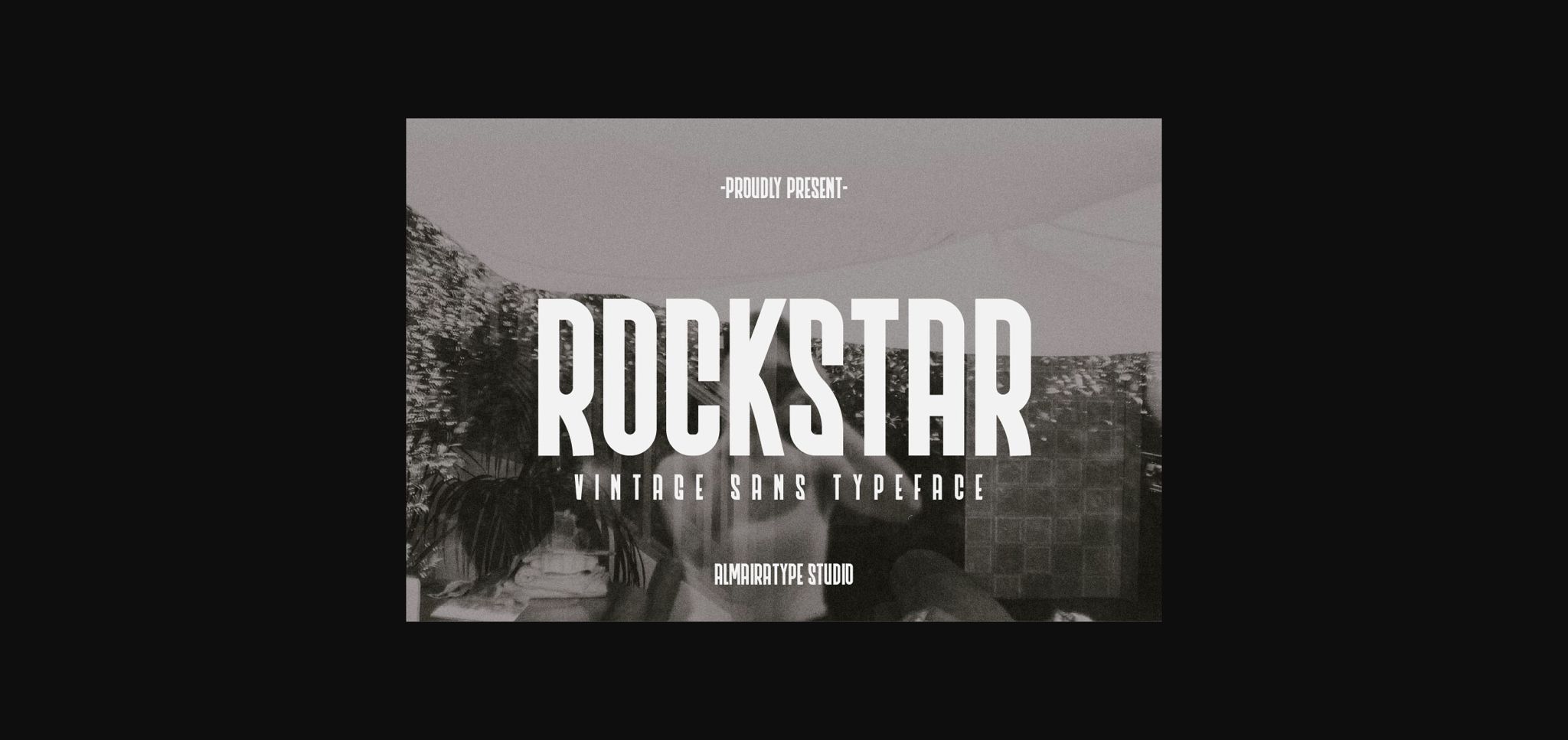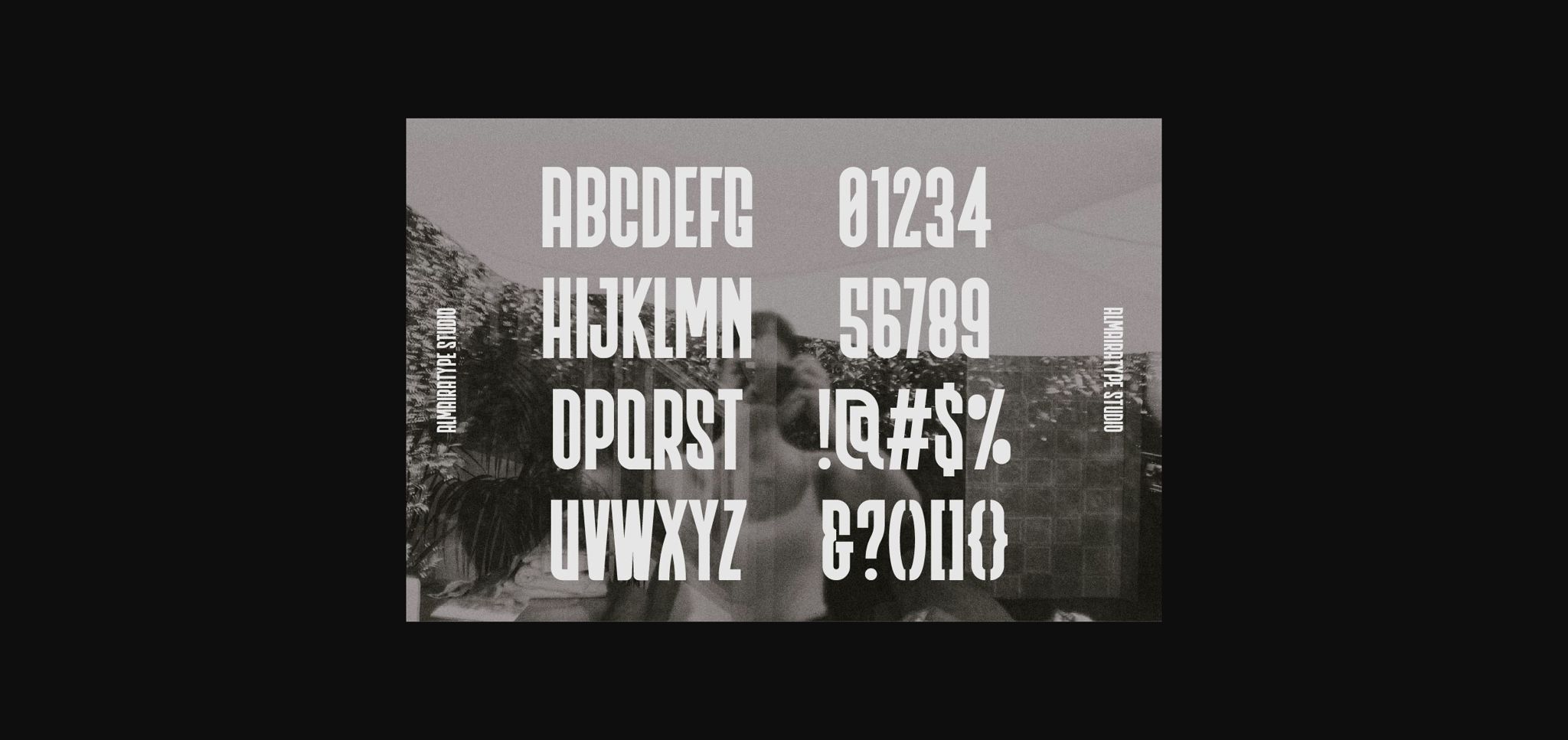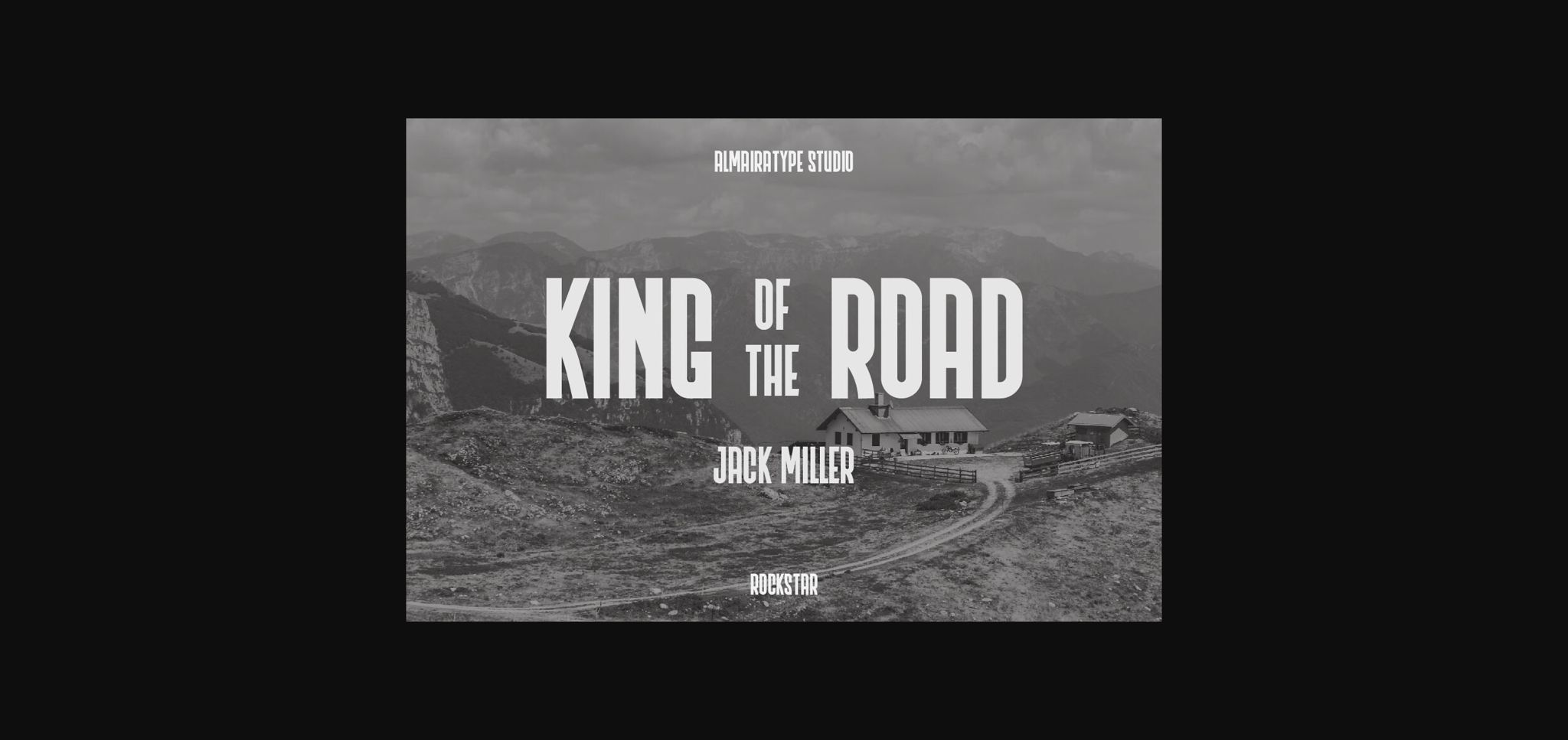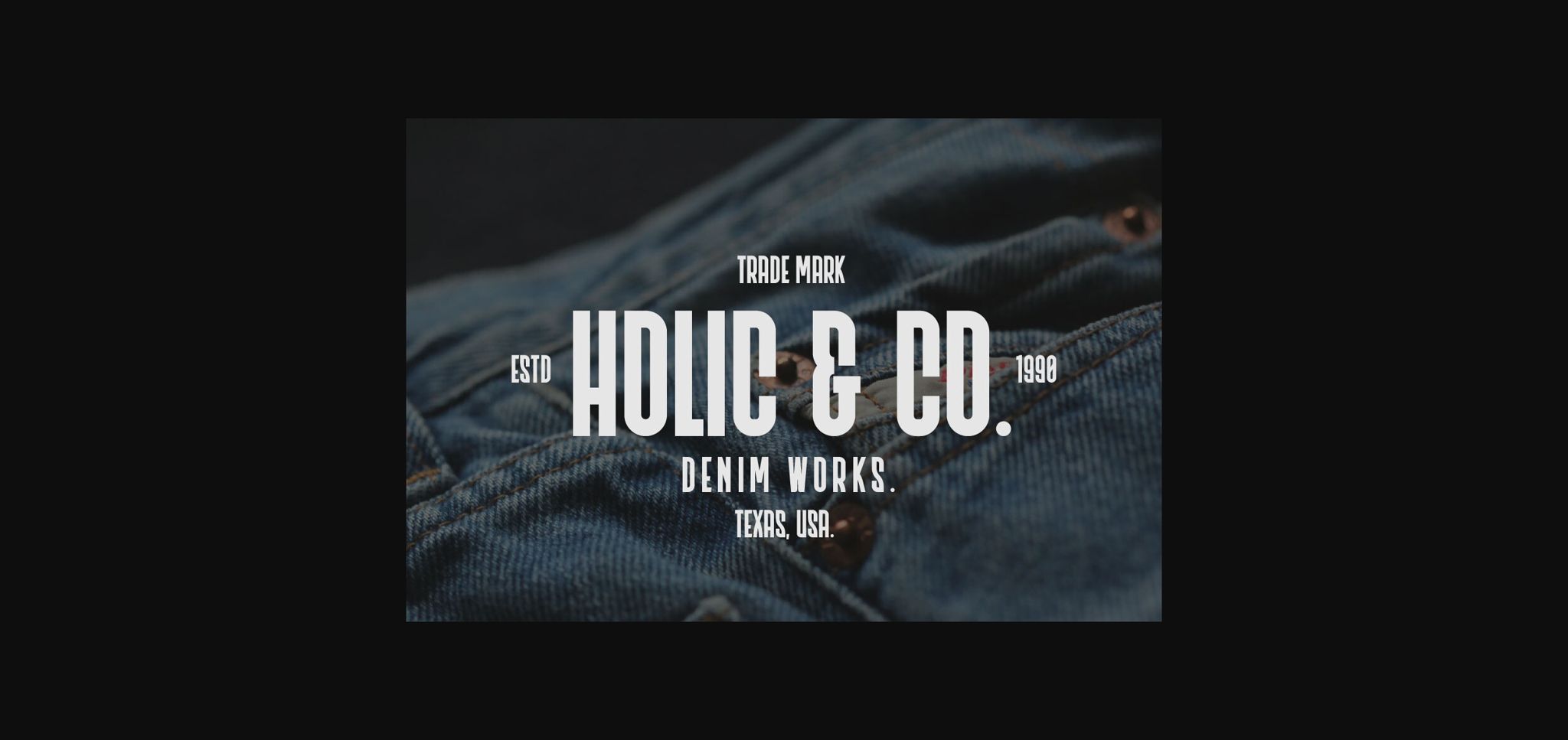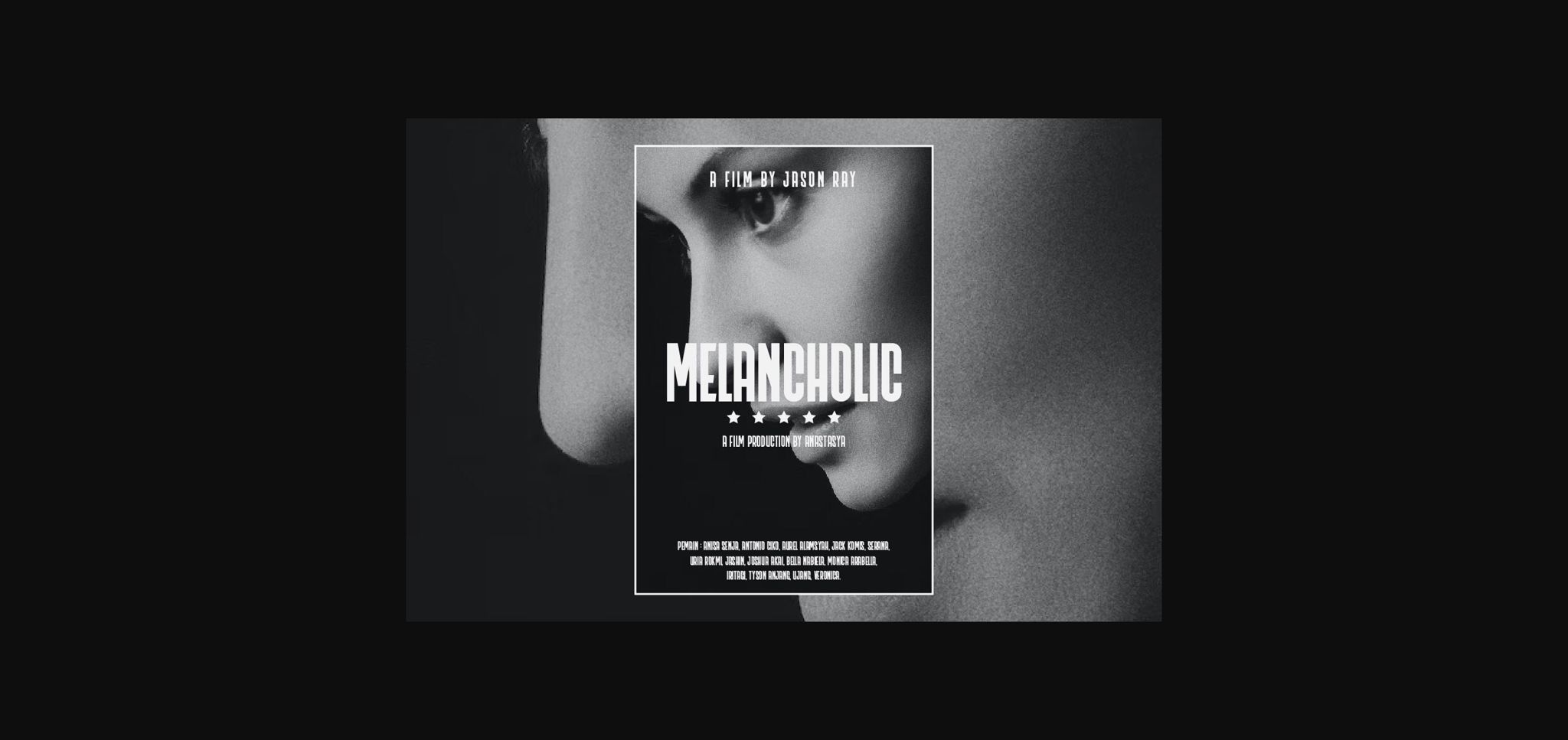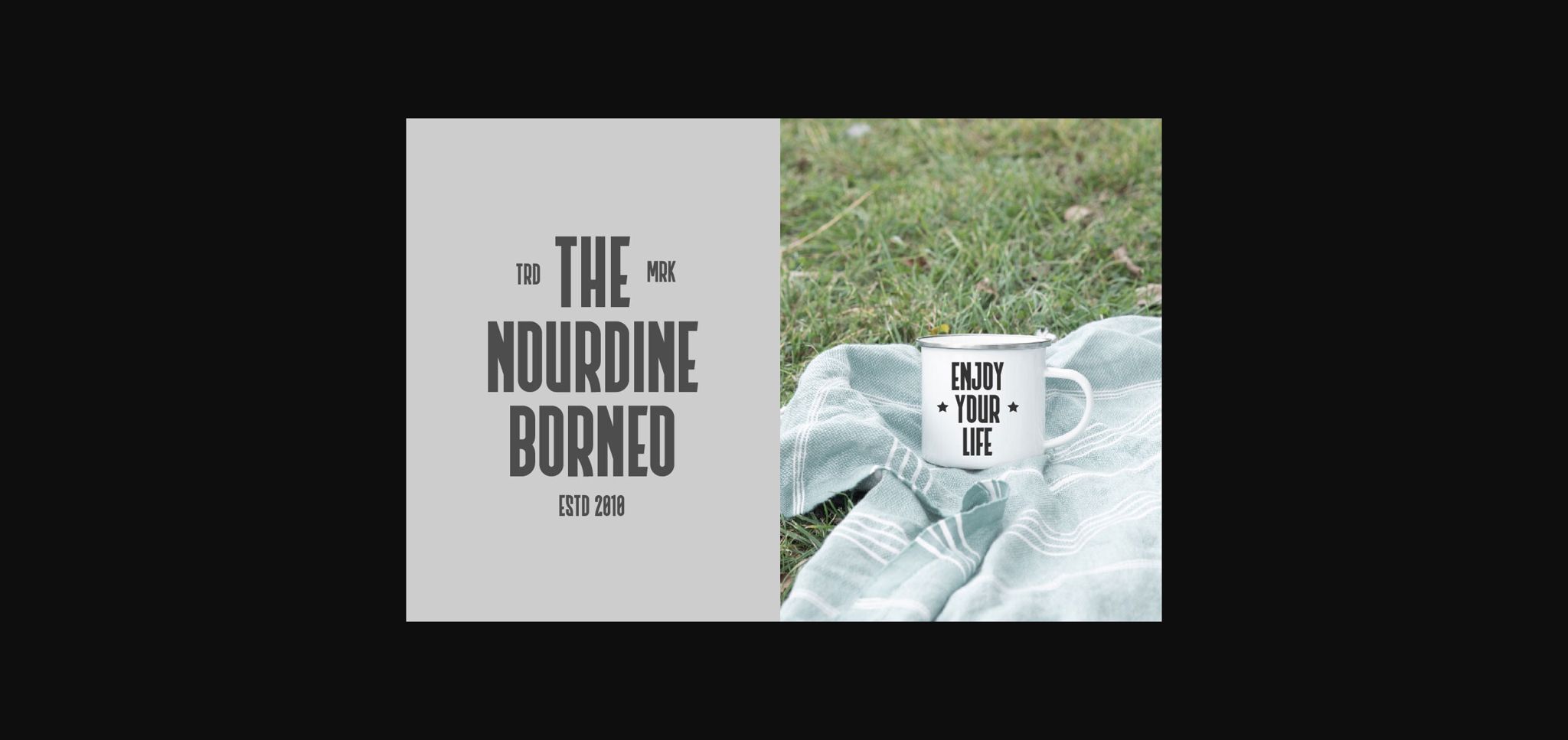
Rockstar Font
About Rockstar Font
Rockstar is a bold and stiff sans serif font with a vintage style. It is suitable for perfecting your creative projects such as t-shirts, labels, logos, web, branding, business, book covers, magazines, pamphlets, flyers, music albums, vinyl, and many other ideas.